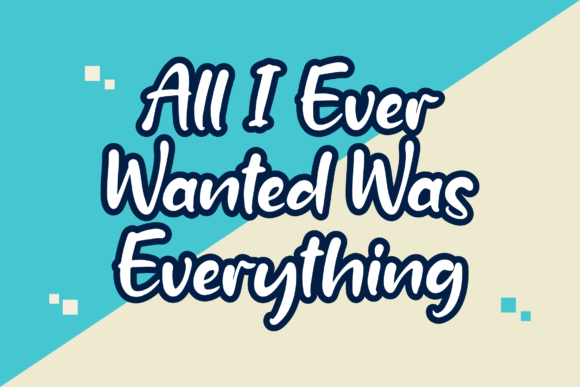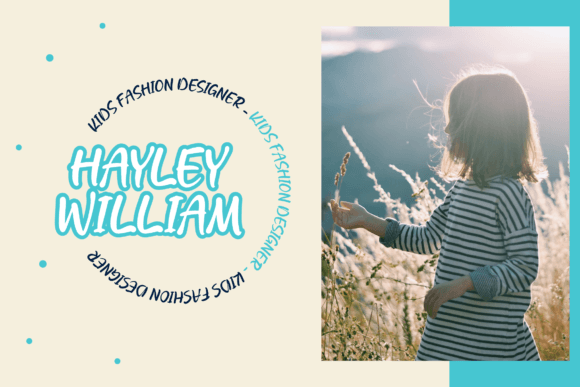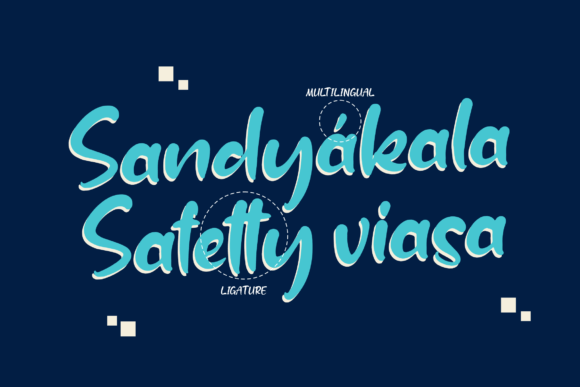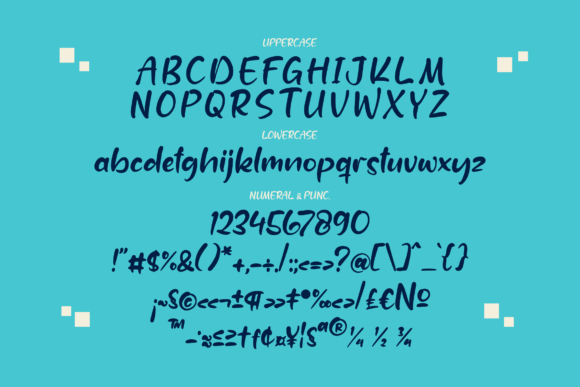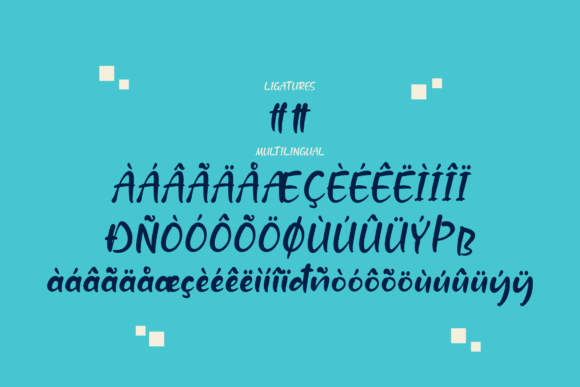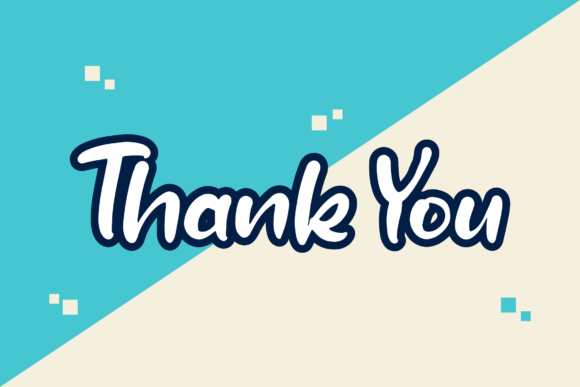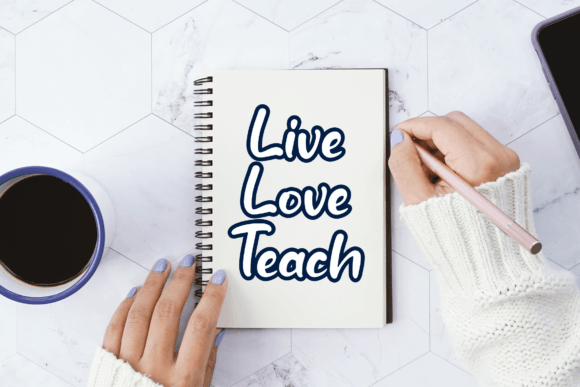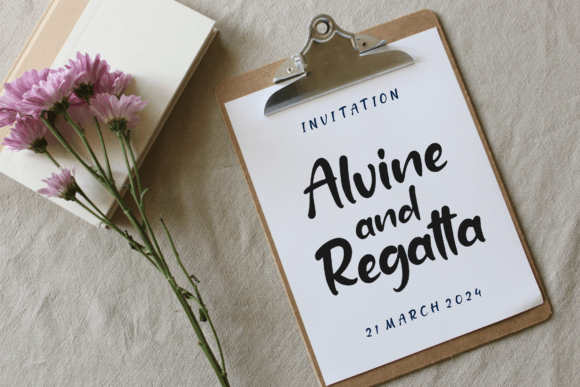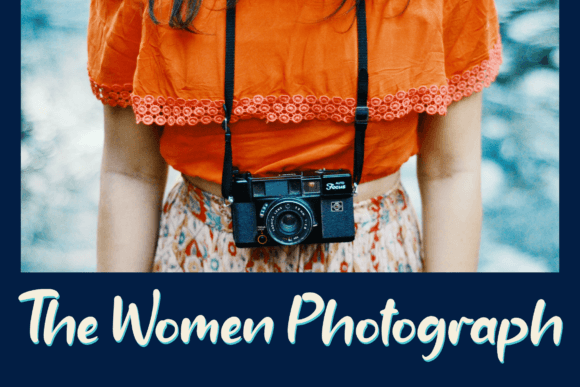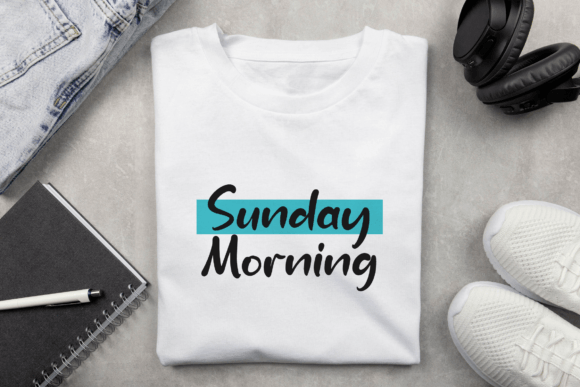
**Sandyakala: Where Cuteness Meets Charm in Typography**
“Sandyakala” steps onto the stage as a cute and charming handwritten font, bringing an air of whimsy and a dash of quirkiness to the world of typography. This font, with its playful demeanor, promises to brighten up every design it graces. Confidently adding “Sandyakala” to your projects is not just a typographic choice; it’s an invitation to love the results as cuteness and charm come together in perfect harmony.
**1. Cute and Charming Aesthetic:**
– At the core of “Sandyakala” lies a cute and charming aesthetic that immediately captures attention. Its handwritten strokes carry an inherent sweetness, making it a perfect choice for designs that seek to exude warmth and approachability.
**2. Whimsical and Quirky Personality:**
– Beyond cuteness, “Sandyakala” brings a touch of whimsy and quirkiness. The irregularities and playful details in its design give the font a character of its own. It’s not just a set of letters; it’s a personality that shines through each curve and loop.
**3. Brightening Designs with Confidence:**
– The assurance that adding “Sandyakala” to your projects will brighten them up speaks to the font’s ability to inject positivity and joy into designs. Whether used in digital or print media, the font becomes a reliable companion in creating visually appealing and cheerful content.
**4. Playful and Versatile:**
– “Sandyakala” isn’t limited by a singular style or application. Its playful nature makes it versatile, adapting seamlessly to various design contexts. From greeting cards to social media graphics, the font adds a touch of playfulness to diverse projects.
**5. Inviting Results with Confidence:**
– The invitation to confidently add “Sandyakala” to projects is a testament to the font’s reliability. Designers can trust that this font will not only meet but exceed expectations, transforming ordinary designs into delightful creations that leave a lasting impression.
**6. Results Laced with Love:**
– Love is woven into the very essence of “Sandyakala.” It’s not just about the visual appeal; it’s about creating designs that resonate with warmth and affection. The results promised by the font are not just aesthetically pleasing; they’re emotionally resonant.
In conclusion, “Sandyakala” is not just a font; it’s a mood, an emotion, and a design philosophy. It’s the choice when you want to infuse your projects with cuteness, charm, and a touch of whimsy. With every stroke, “Sandyakala” tells a story of playfulness and joy, inviting you to confidently embrace its adorable personality. Add it to your projects, and let the results speak a language of love and creativity, where each design becomes a canvas of cuteness and charm.